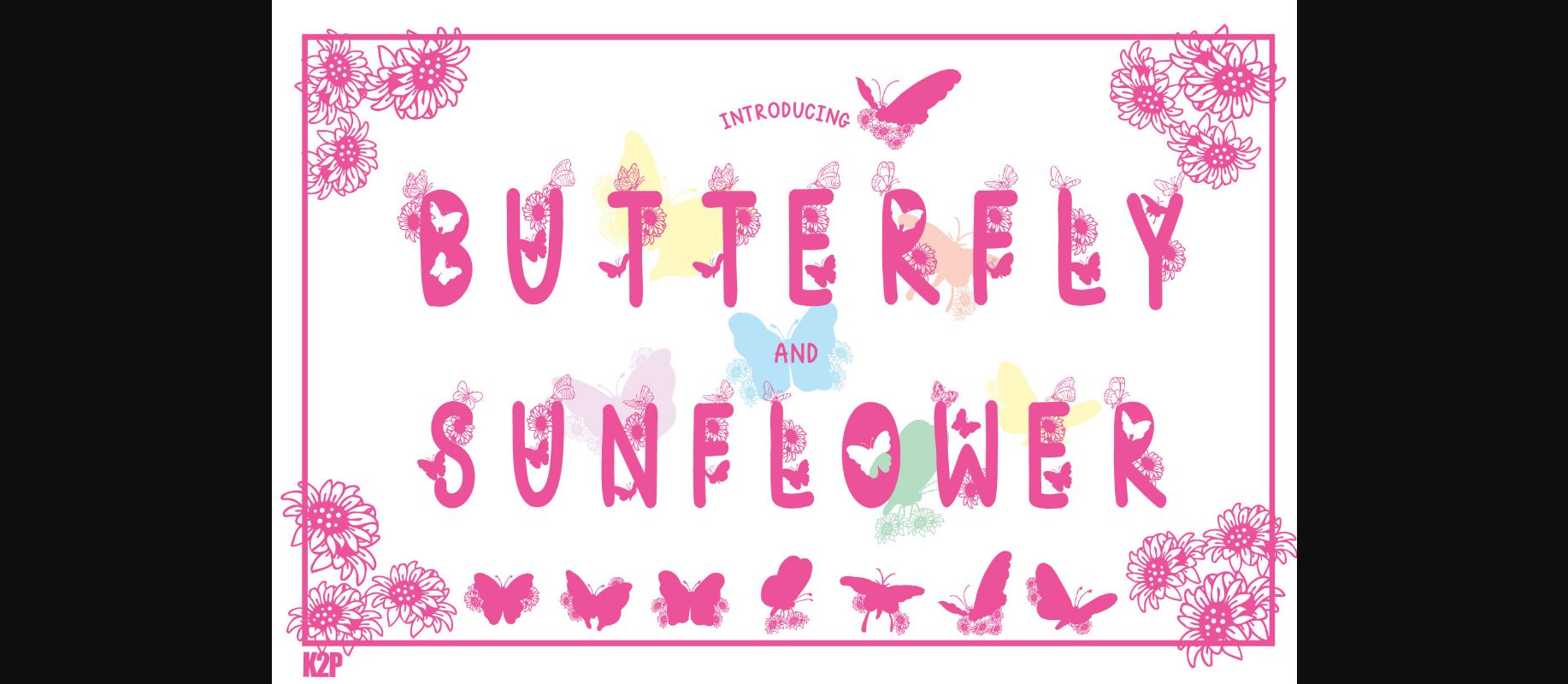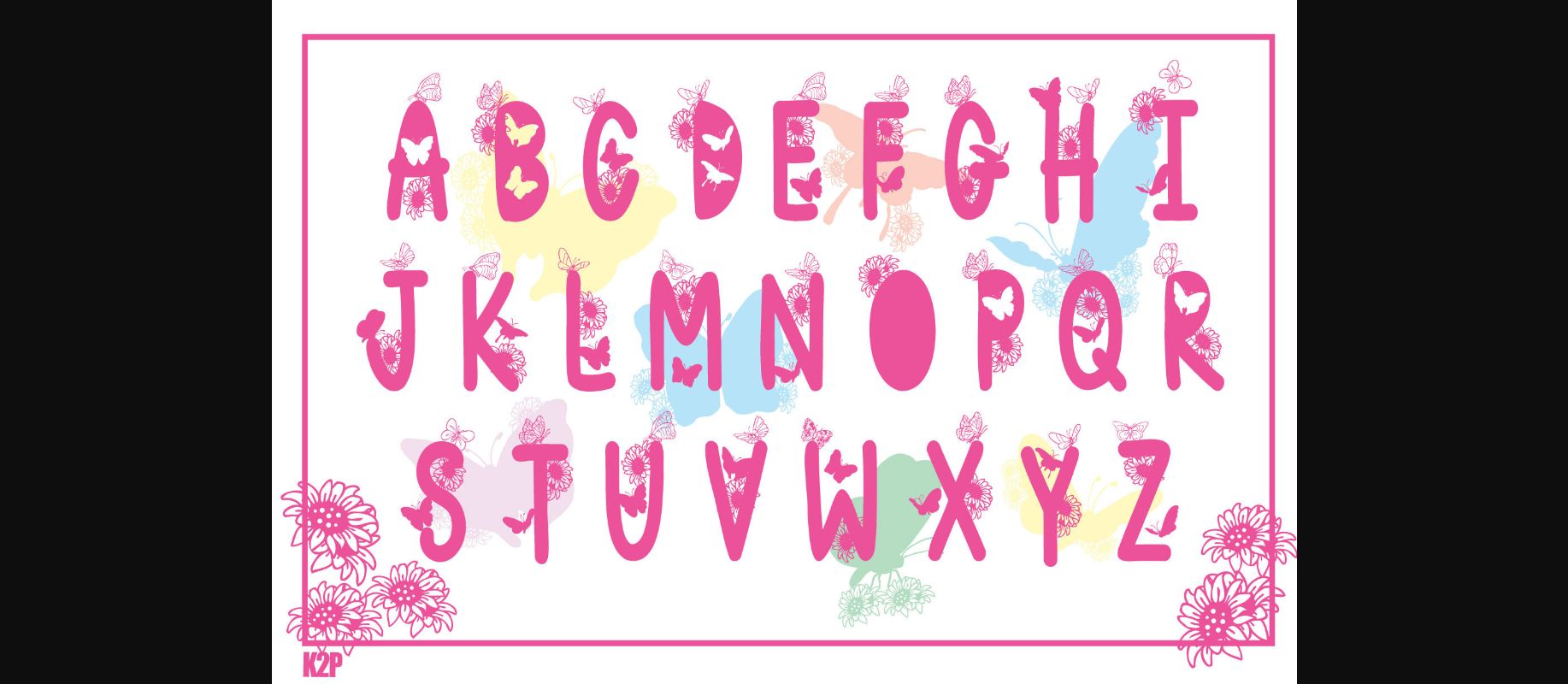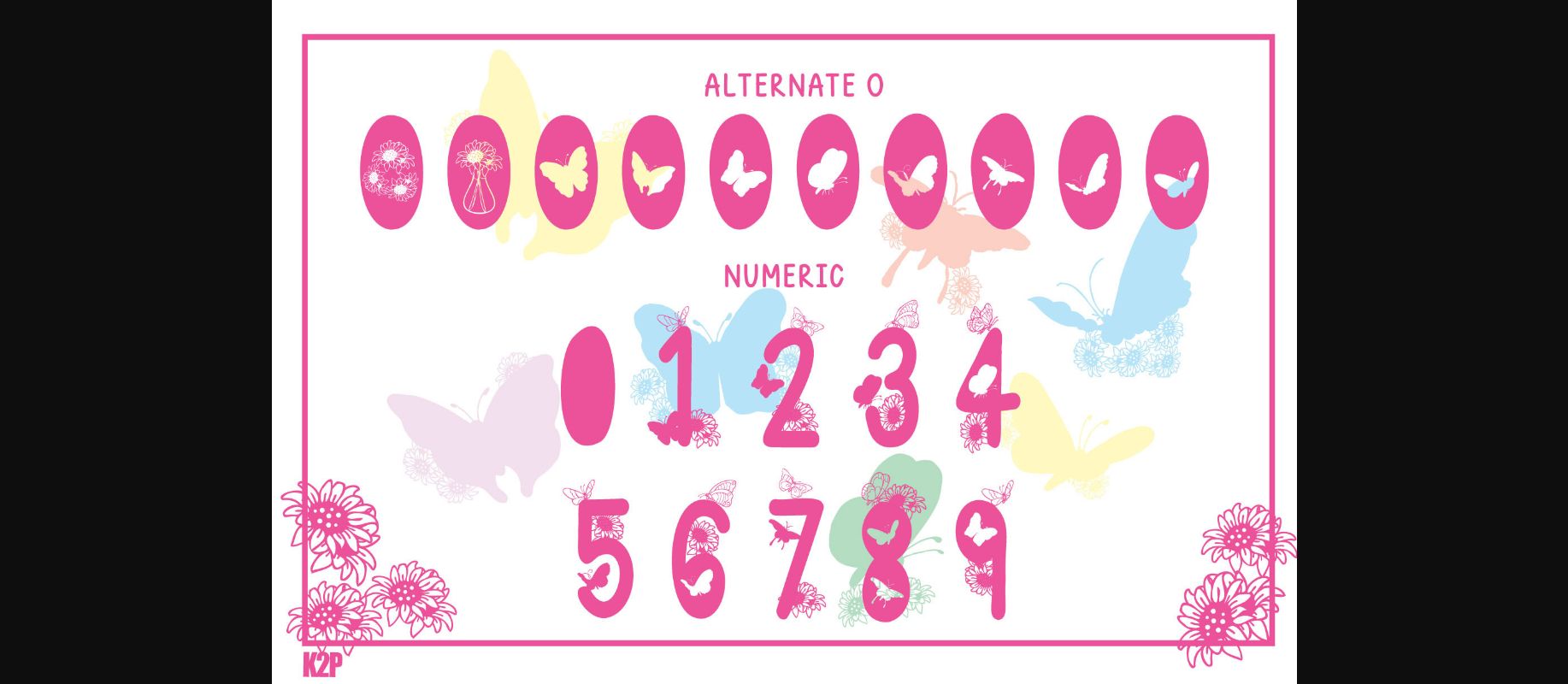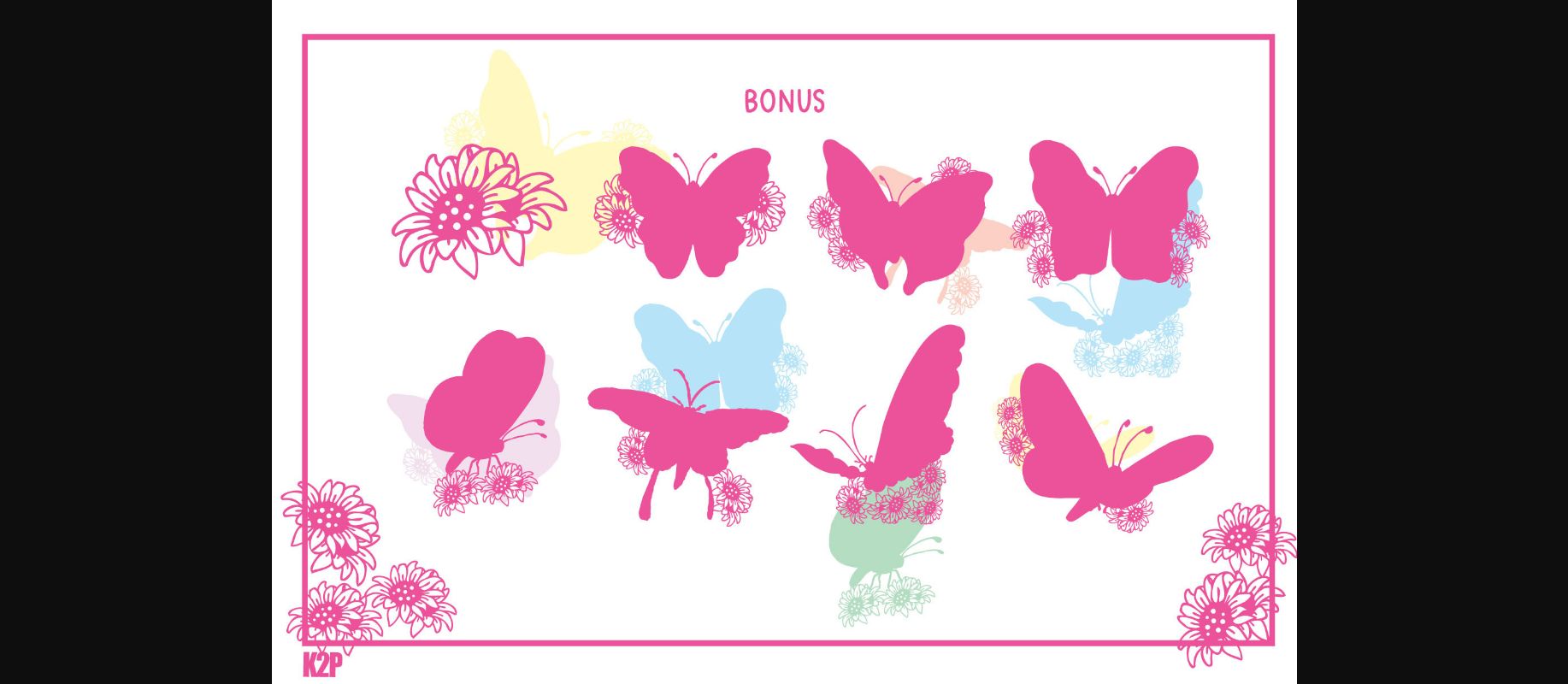
About Butterfly and Sunflower Font
Butterfly and Sunflower is a thick-lettered and festive decorative font suitable for various quotes or teaching material! Its authentic look will add a personal and realistic feel to your designs. This font is PUA encoded, which means you can access all of the amazing glyphs and ligatures with ease!